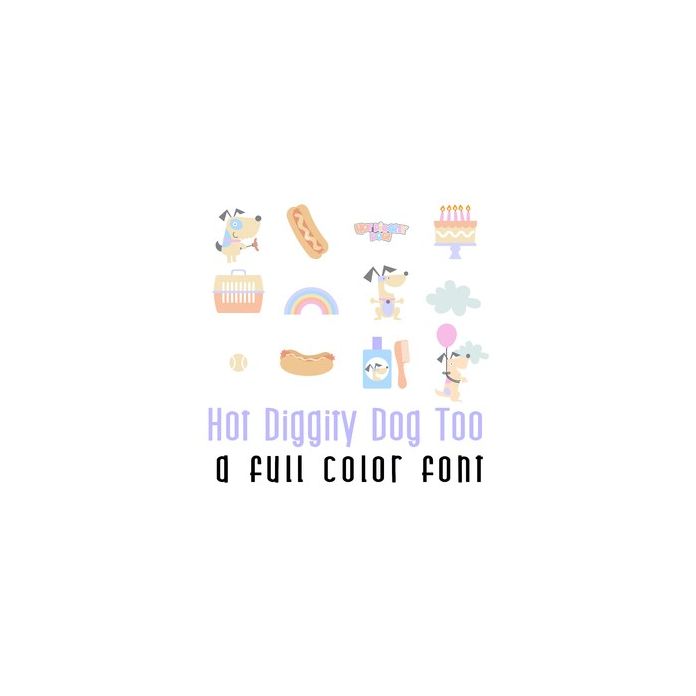
This adorable full-color doodlebat font features 26 adorable dogs ready to party. Perfect for cards, crafts, gifts, decor, scrapbook pages, planner stickers, and more!